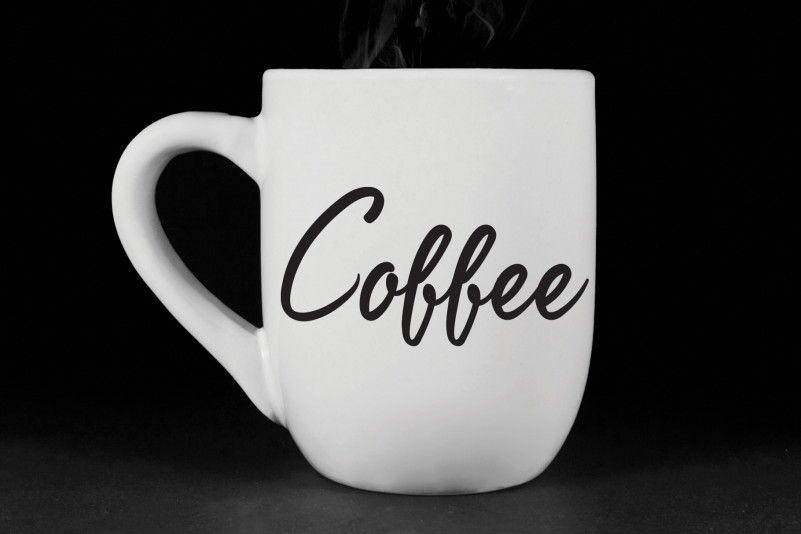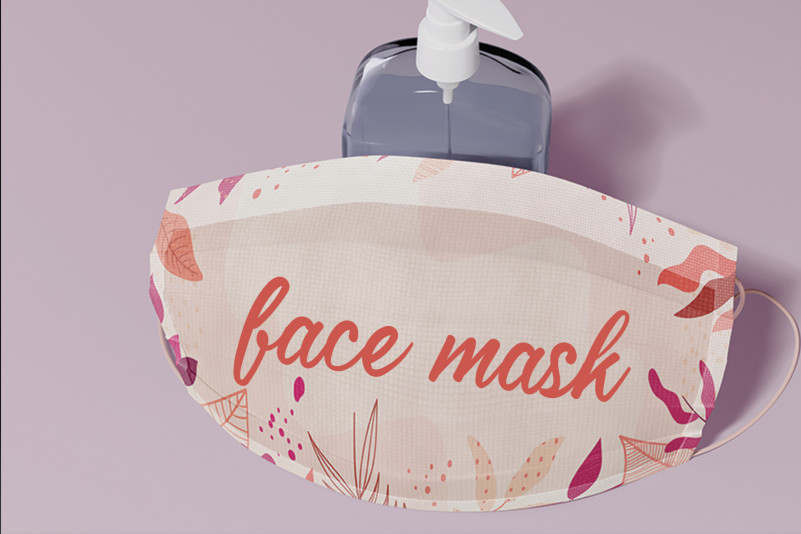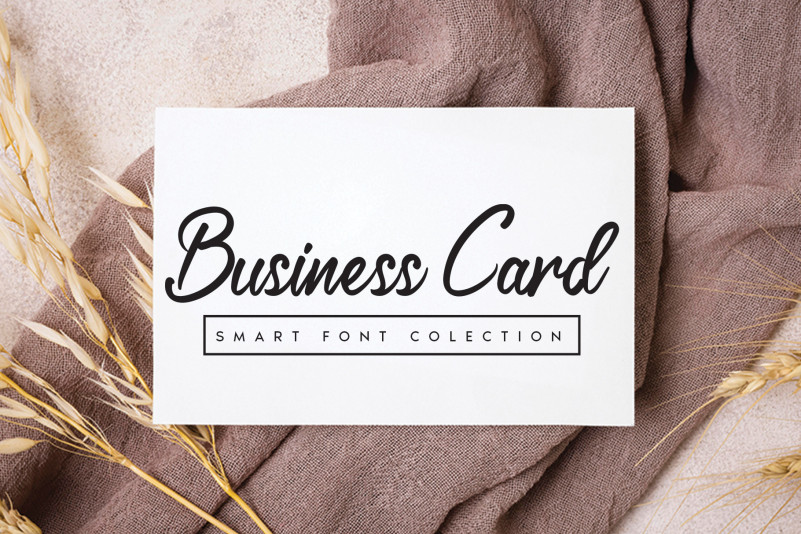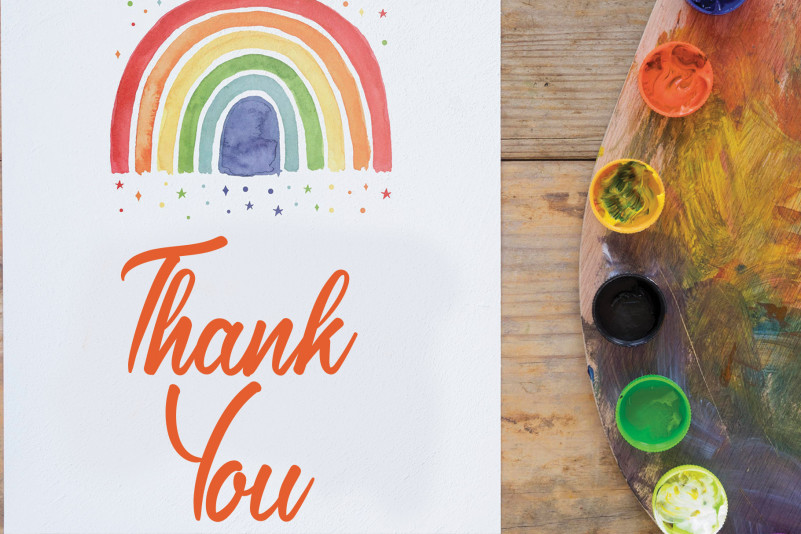
Mellow Flower Script Font
Mellow Flower Script Font is a sweet, flowing and relaxed handwritten font. Fall in love with its beautiful style and create lovely designs!